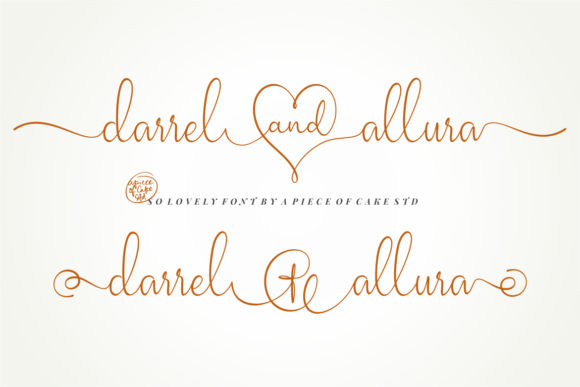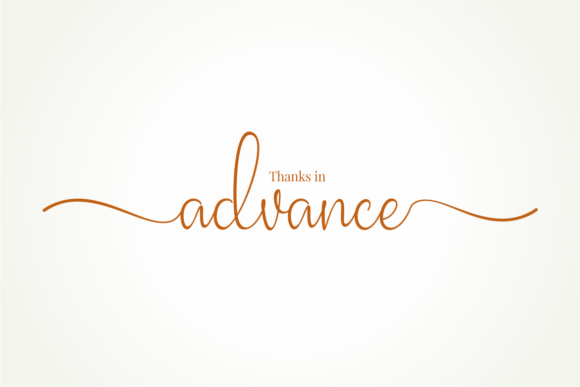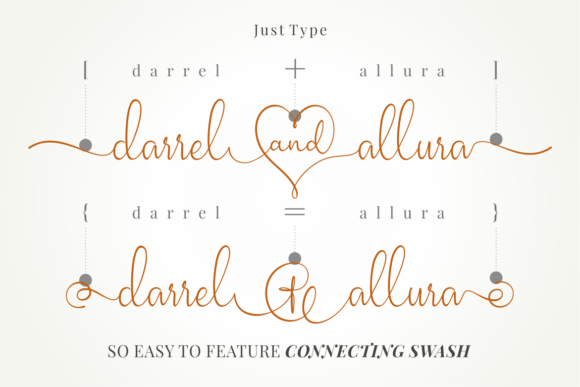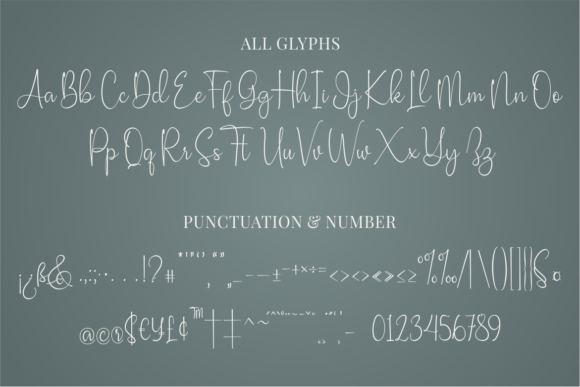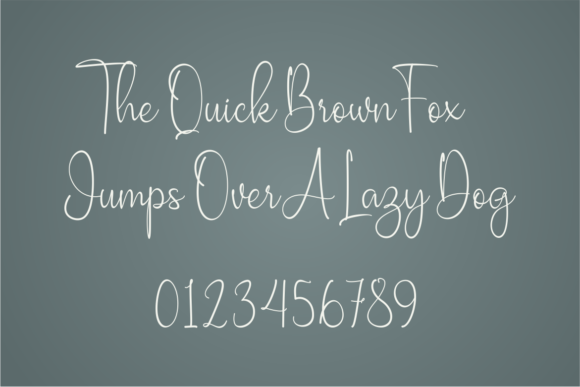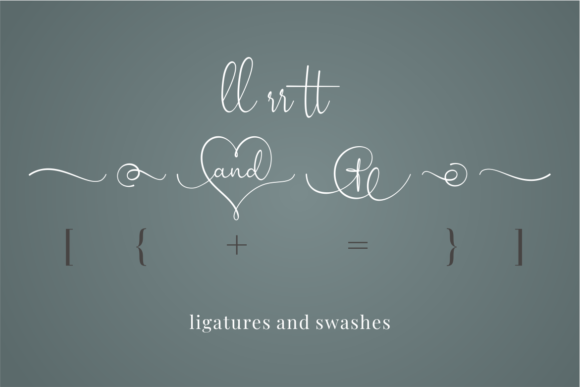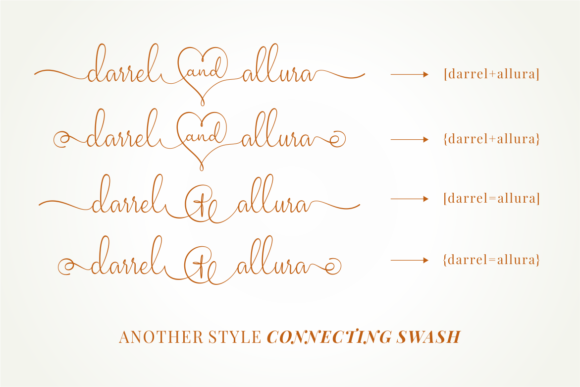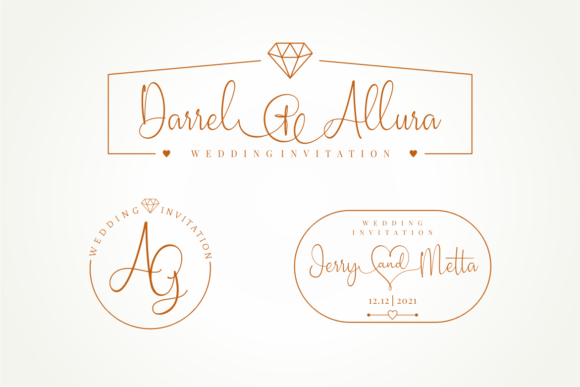
Darrel Allura Font
About Darrel Allura Font
Darrel Allura is a magical script font carefully created with a touch of elegance. Whether you’re looking for fonts for Instagram or calligraphy scripts for DIY projects, this font will turn any creative idea into a true piece of art!